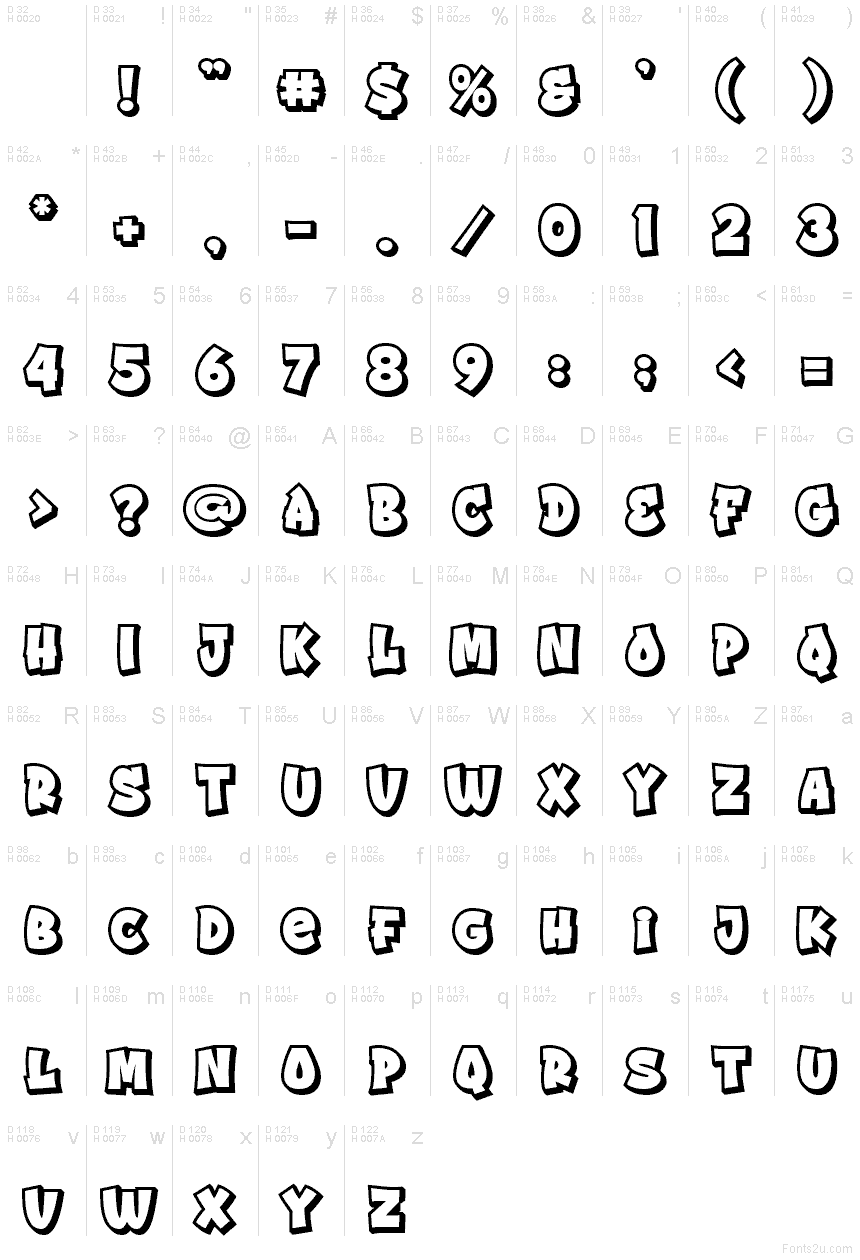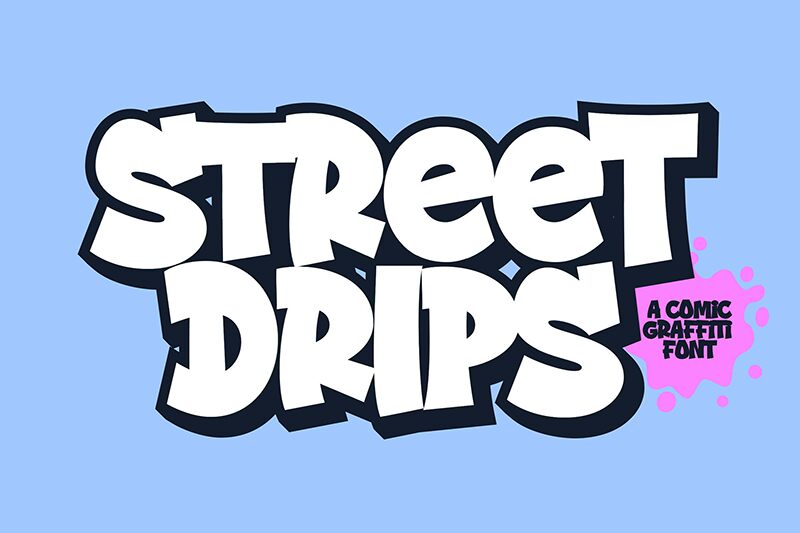
Street Drips Extrude
Street Drips Extrude font by Blankids is a free bold extruded cartoon display font. Built within the Street Drips family, it stands out with puffy, bubble-like forms, inky drip accents, and a chunky black outline that pops like fresh marker lines on concrete. The extruded shadow adds instant depth, making type feel stacked and sticker-thick—loud, playful, and impossible to miss.
Using Street Drips Extrude, headlines carry a bouncy rhythm and generous spacing that holds up at large sizes without collapsing into a blob. This free font shines on hip‑hop flyers, snack or candy packaging, YouTube thumbnails, sticker sheets, skateboard graphics, and kids’ streetwear branding. Keep the impact strong by pairing it with a clean, condensed sans for small text and letting the display layer breathe with generous margins.